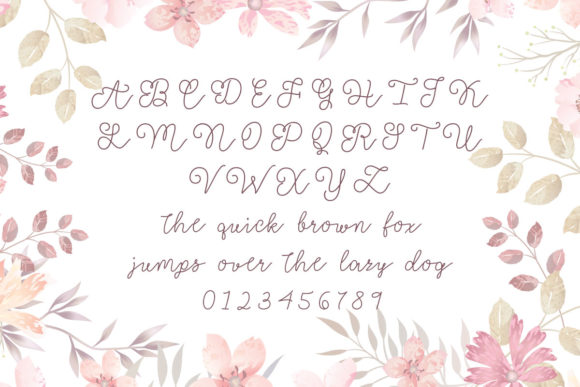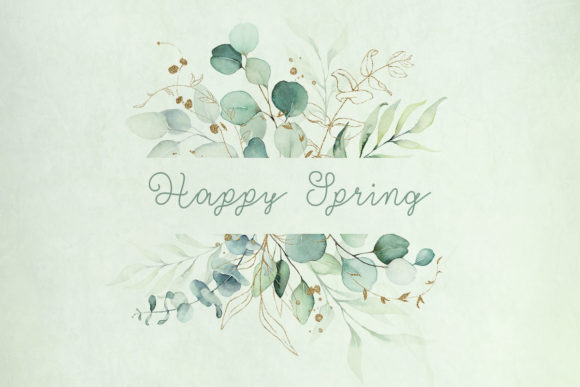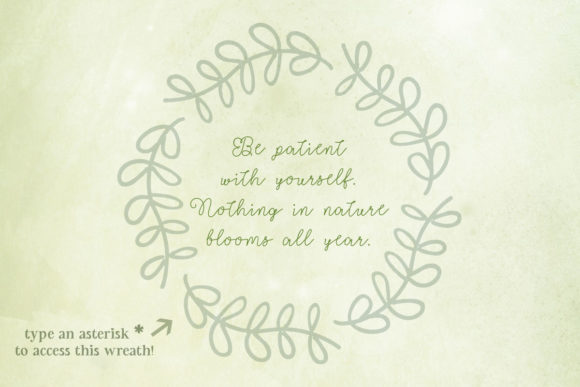
Introduction to Blodwen Font
Blodwen is a beautiful light handwritten font with a unique feel and a stunning impact.
It will add a luxury spark to any design project that you wish to create This font is PUA encoded which means you can access all of the amazing glyphs and ligatures with ease.
Key Features of Blodwen Font
Why Choose Blodwen Font?